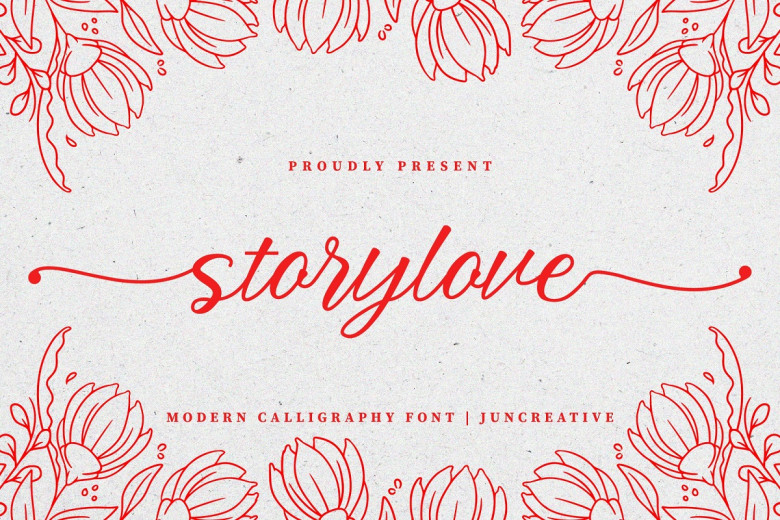
Storylove Font
Storylove is a beautiful script calligraphy with begining and ending swashes. It has a natural look, and it will be good for any project. A new calligraphy font with incredibly versatile looks, so good when you use it in your creations!
Storylove Calligraphy Script Font